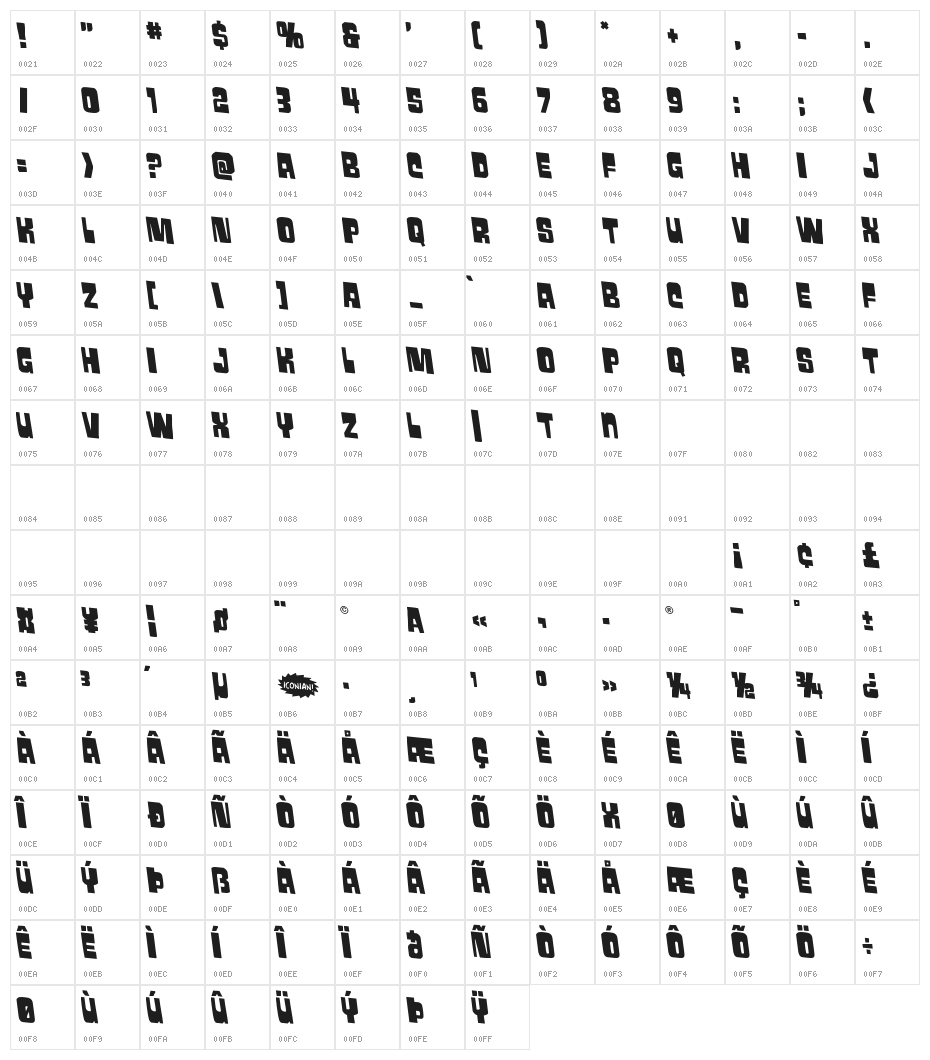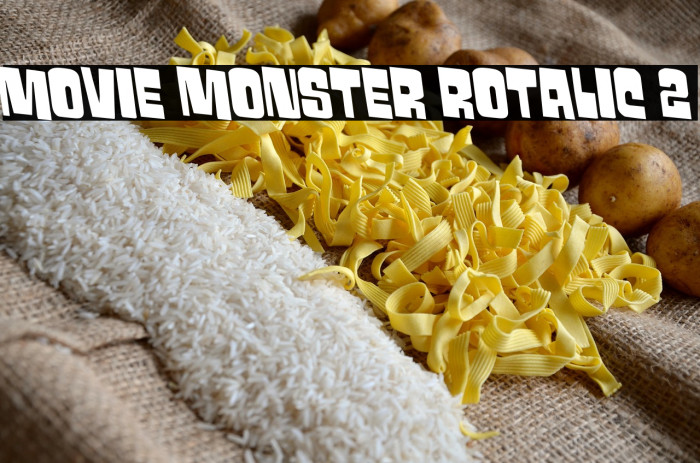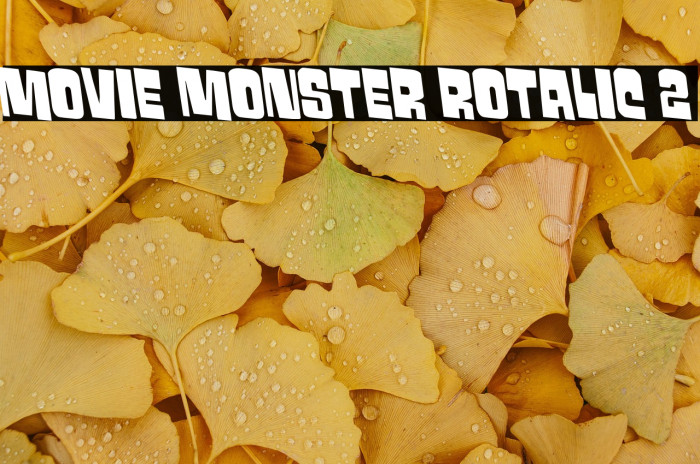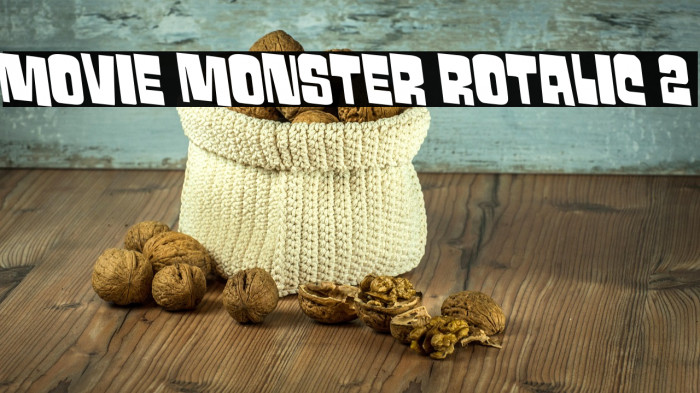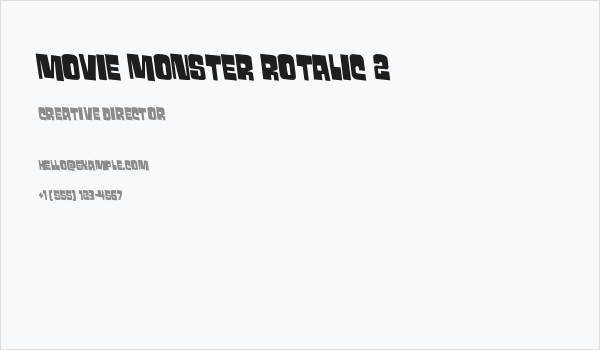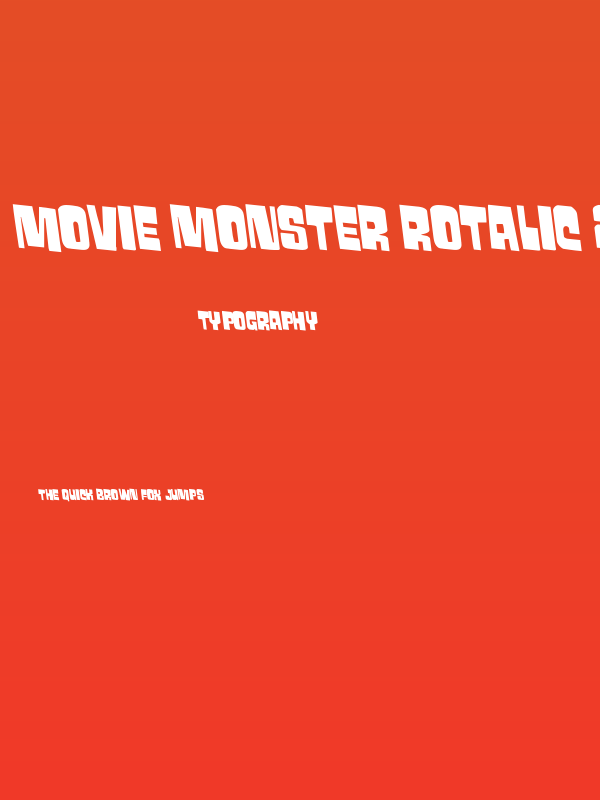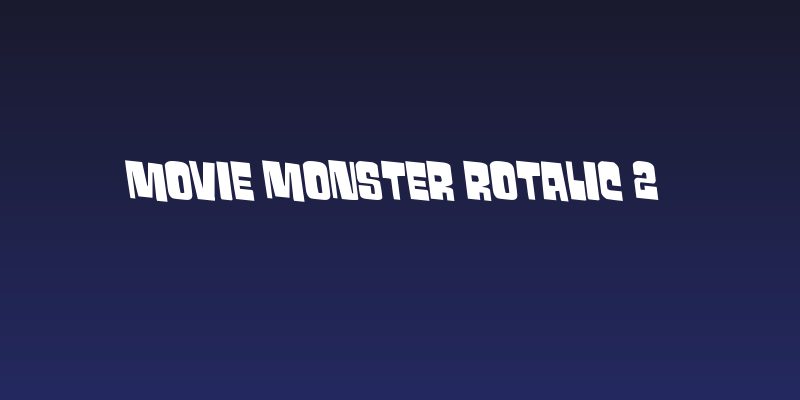
Movie Monster Rotalic 2 Font
Movie Monster Rotalic 2 Description
This font features a bold and dynamic style with a strong presence. The characters are heavily weighted, with thick strokes that create a sense of power and impact. The letters are slightly slanted, adding a sense of motion and energy, which is further emphasized by the angular cuts and sharp edges. The font's design is reminiscent of classic movie posters, making it ideal for capturing attention and conveying a sense of drama. The numbers and special characters maintain the same bold and angular aesthetic, ensuring consistency across all elements.
| Proposed Projects | Ideal for movie posters, video game titles, branding for action-themed products, and any project requiring a strong visual impact. |